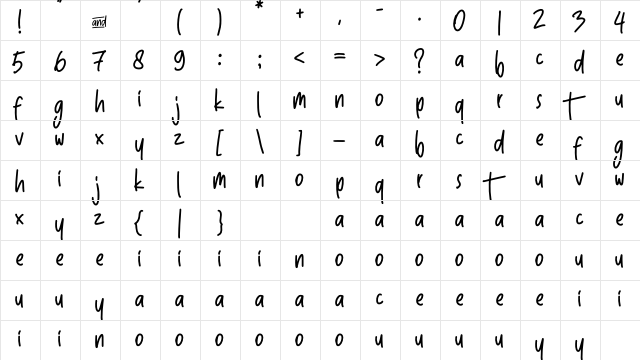
The Absolute Regular
| Designer | Sigit Dwipa Raharjo |
Design Context for The Absolute Typeface
The Absolute is a composed and adaptable typeface that performs quietly and consistently across a wide range of design contexts.